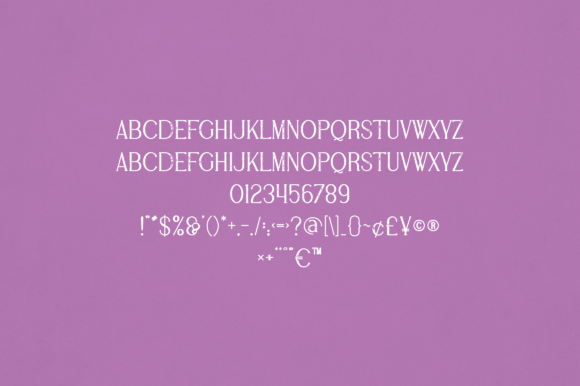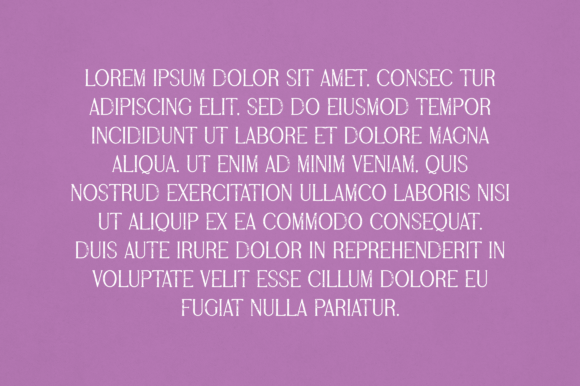
The Aviva Font: Elevate Your Typography with Elegance
- ✨ **Elegant and sophisticated**: Aviva’s refined lines and curves make it perfect for high-end branding, logos, and headlines.
- ✅ **Versatile**: This font adapts seamlessly to various design contexts, from digital to print.
- 💡 **OpenType features**: Aviva offers a range of stylistic alternates, glyphs, and ligatures to give your text a unique twist.
- 👍 **Easy to read**: Despite its elegant nature, Aviva remains highly legible, even at smaller font sizes.
While Aviva is an exceptional font, it’s not without its minor quirks. For instance:
- 🤔 **Limited italic variations**: Aviva’s italic styles are not as extensive as some other fonts, which might limit your design options in certain situations.
- ⚠️ **Occasional kerning issues**: As with any font, you may encounter kerning issues when pairing Aviva with other fonts or using it at unusual font sizes.
The Story Behind Aviva: Designer Inspiration
Aviva was designed by a renowned type foundry with a passion for creating elegant, versatile fonts. The designer’s goal was to craft a font that would excel in various design contexts, from luxury branding to digital media. Inspired by classic typography and modern design trends, Aviva was born – a font that effortlessly balances sophistication with approachability.
| Author | vladfedotovv |
Q: What makes Aviva suitable for branding projects?
A: Aviva’s elegant and sophisticated design makes it perfect for branding projects, as it can help establish a luxurious and professional image.
Q: Can I use Aviva for body text?
A: While Aviva is an excellent font for headlines and titles, it’s also legible enough for body text. However, you may want to consider a complementary font for longer blocks of text.
Q: Does Aviva support OpenType features?
A: Yes, Aviva offers a range of OpenType features, including stylistic alternates, glyphs, and ligatures, which can enhance your typography and add visual interest.